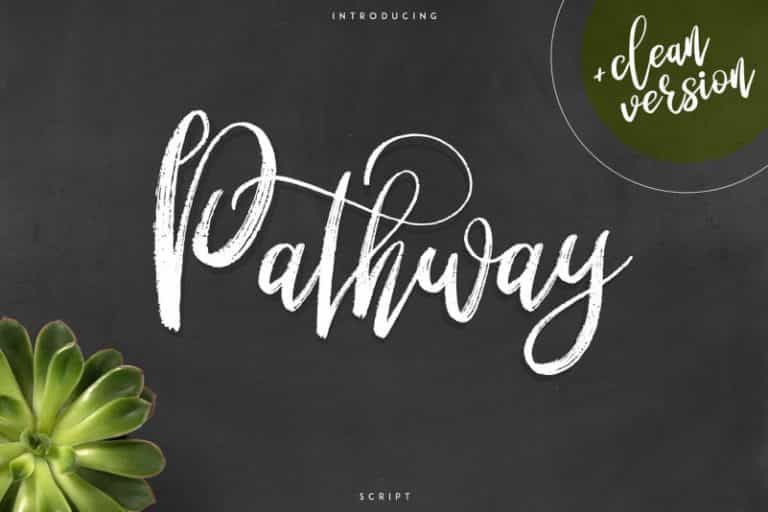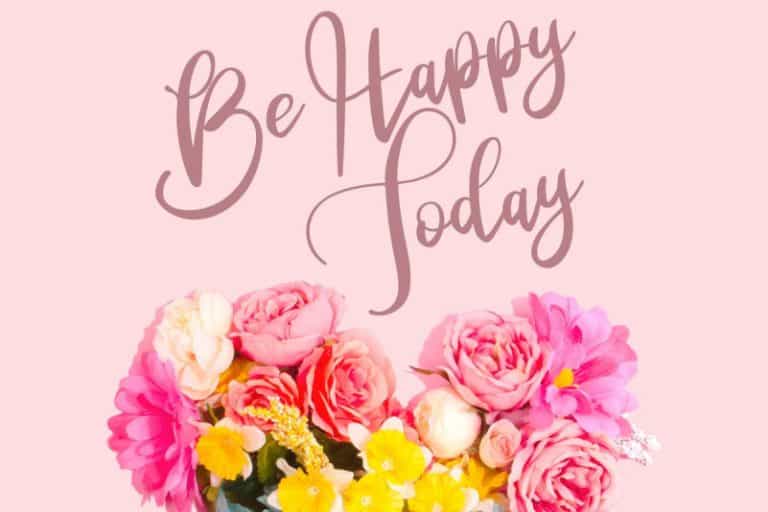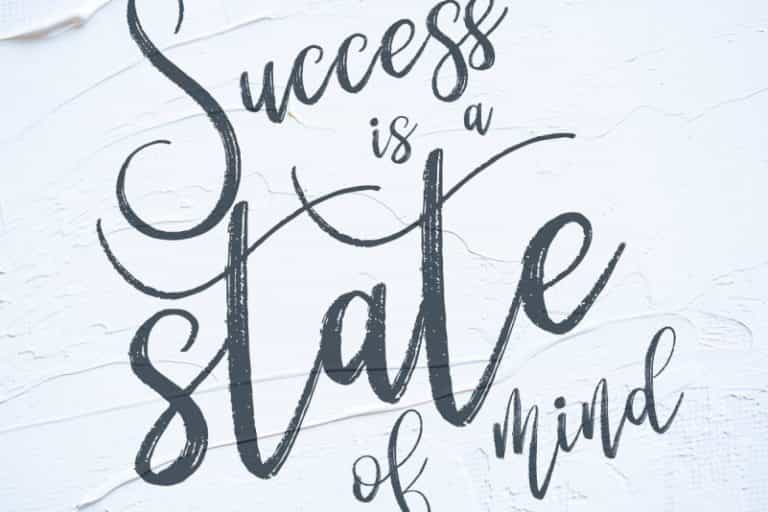
Introducing Pathway Brush Font. Pathway was created and passed on by VPcreativeshop. Pathway Script Font is a hand-drawn, fun typeface with 2 styles and multilingual support. It is a very flexible font that can be used in both big and small sizes. Pathway is great for branding projects, home-ware designs, product packaging, magazine headers – or just as a chic text overlay to any background image.